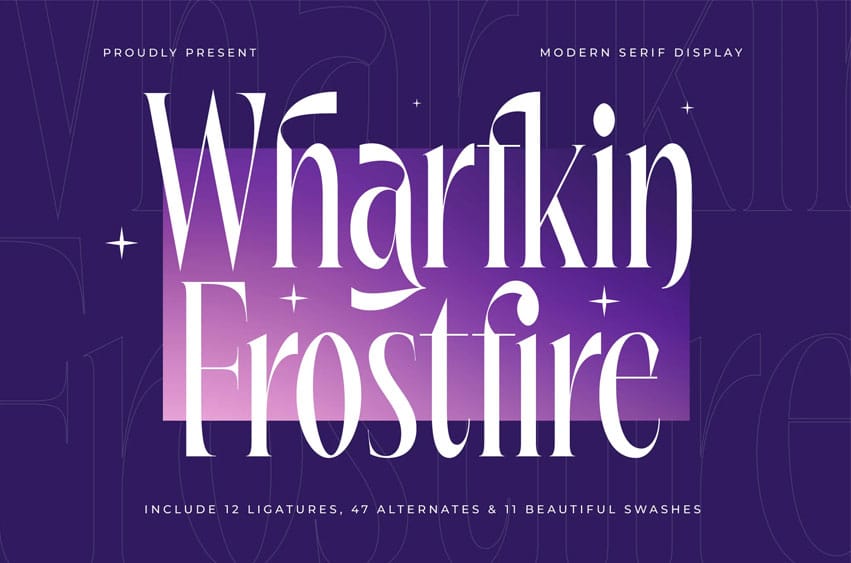
Wharfkin Frostfire Font is a modern high-contrast serif display font crafted with elegant curves, refined proportions, and artistic ligatures. Designed for luxury branding, editorial layouts, packaging, and sophisticated logo design, this typeface blends contemporary finesse with timeless classic charm.
Featuring 12 ligatures, 47 stylistic alternates, and 11 graceful swashes, Wharfkin Frostfire gives you the creative flexibility to shape expressive headlines, stylish titles, and striking visual identities. Its sharp contrast, elongated serifs, and fluid letterforms make it a perfect choice for fashion brands, magazines, invitations, boutique logos, and premium design projects.